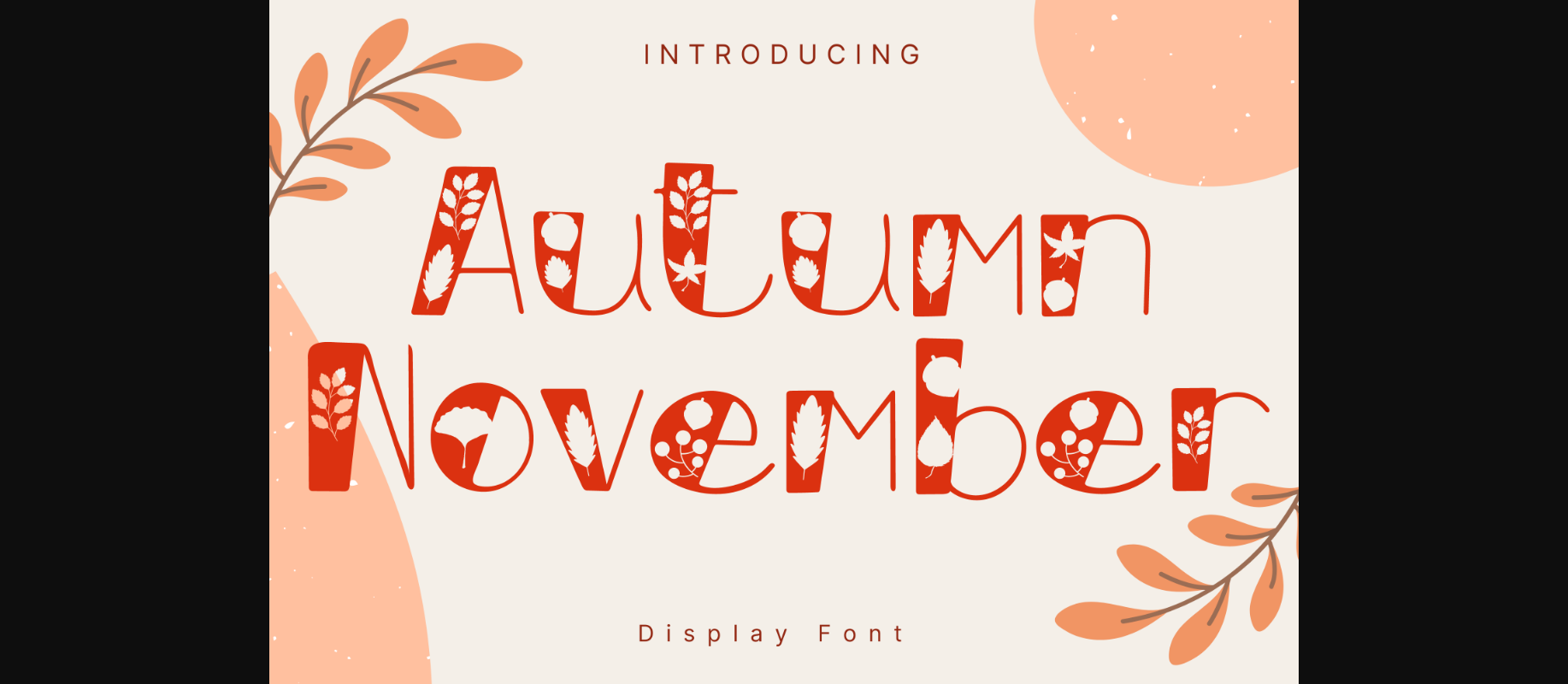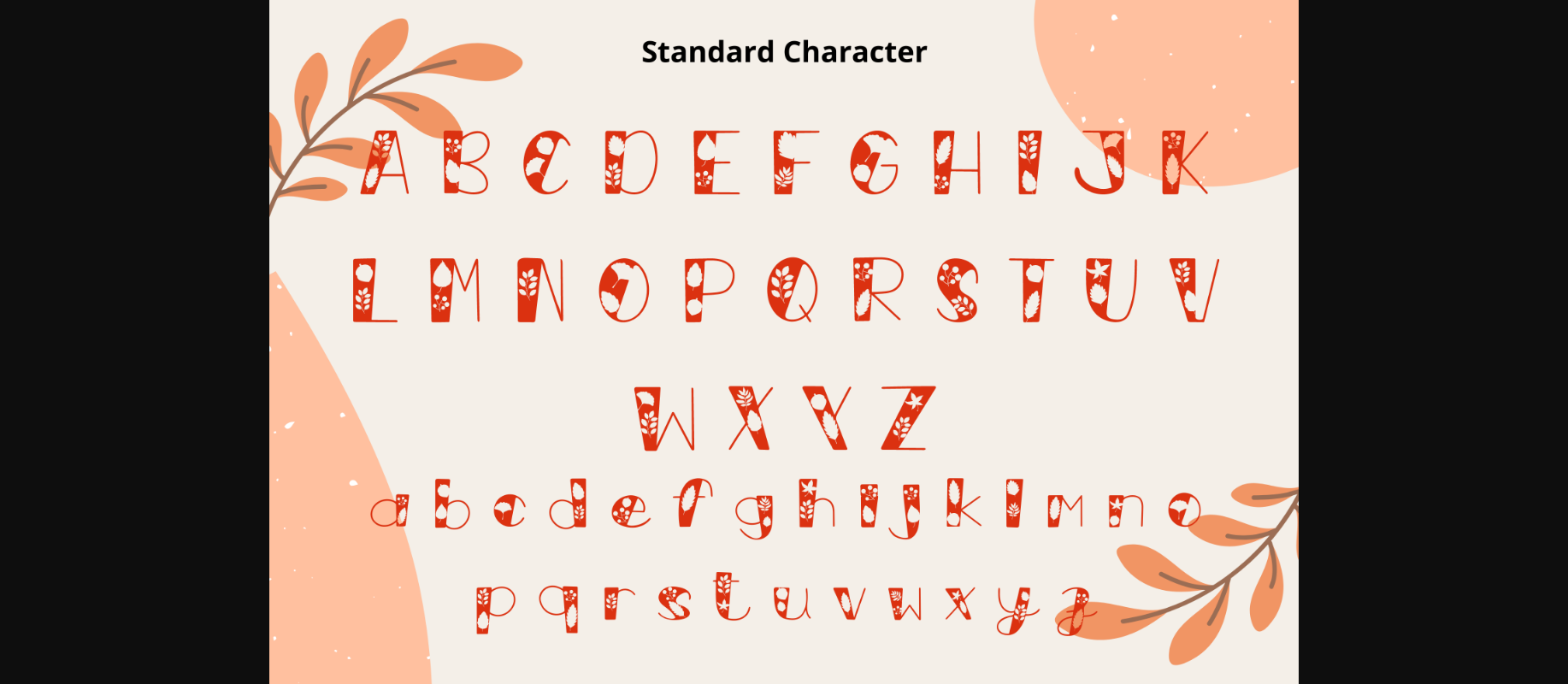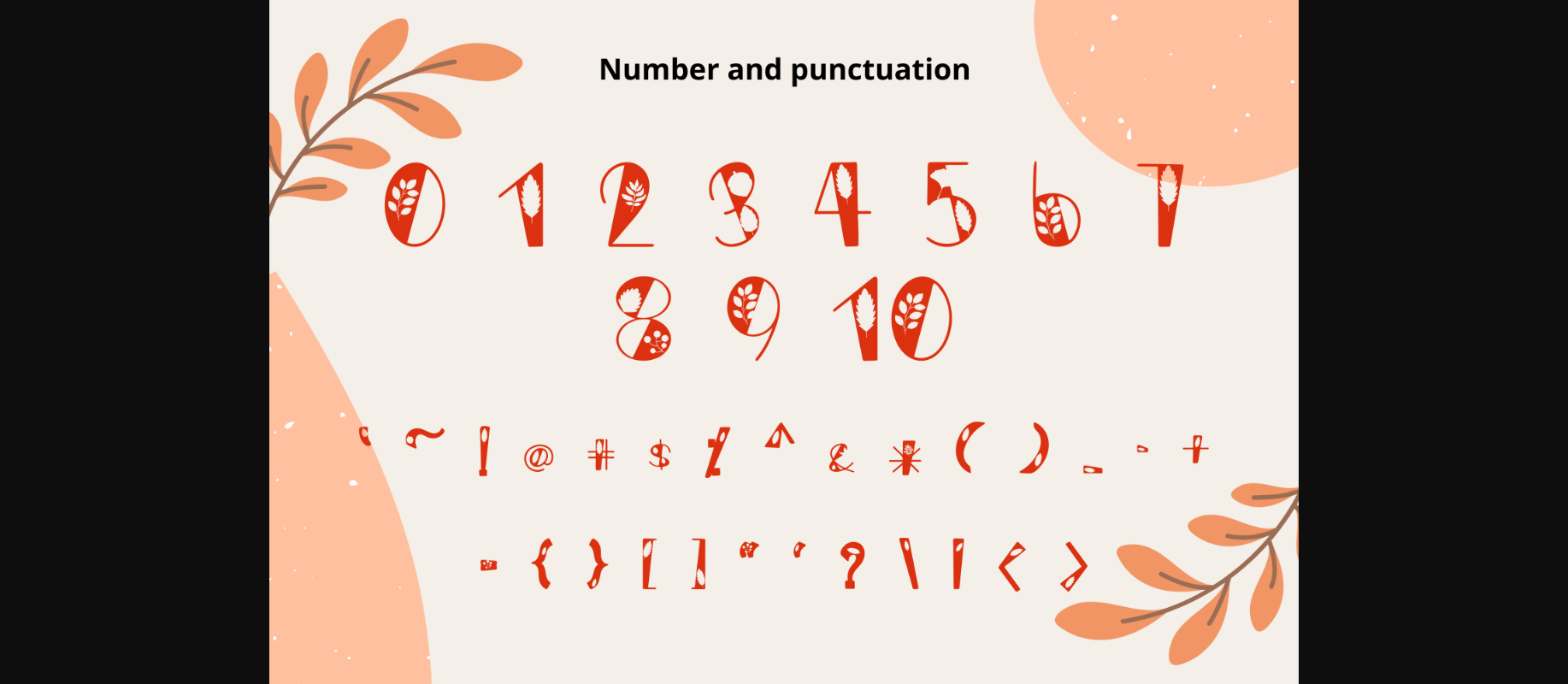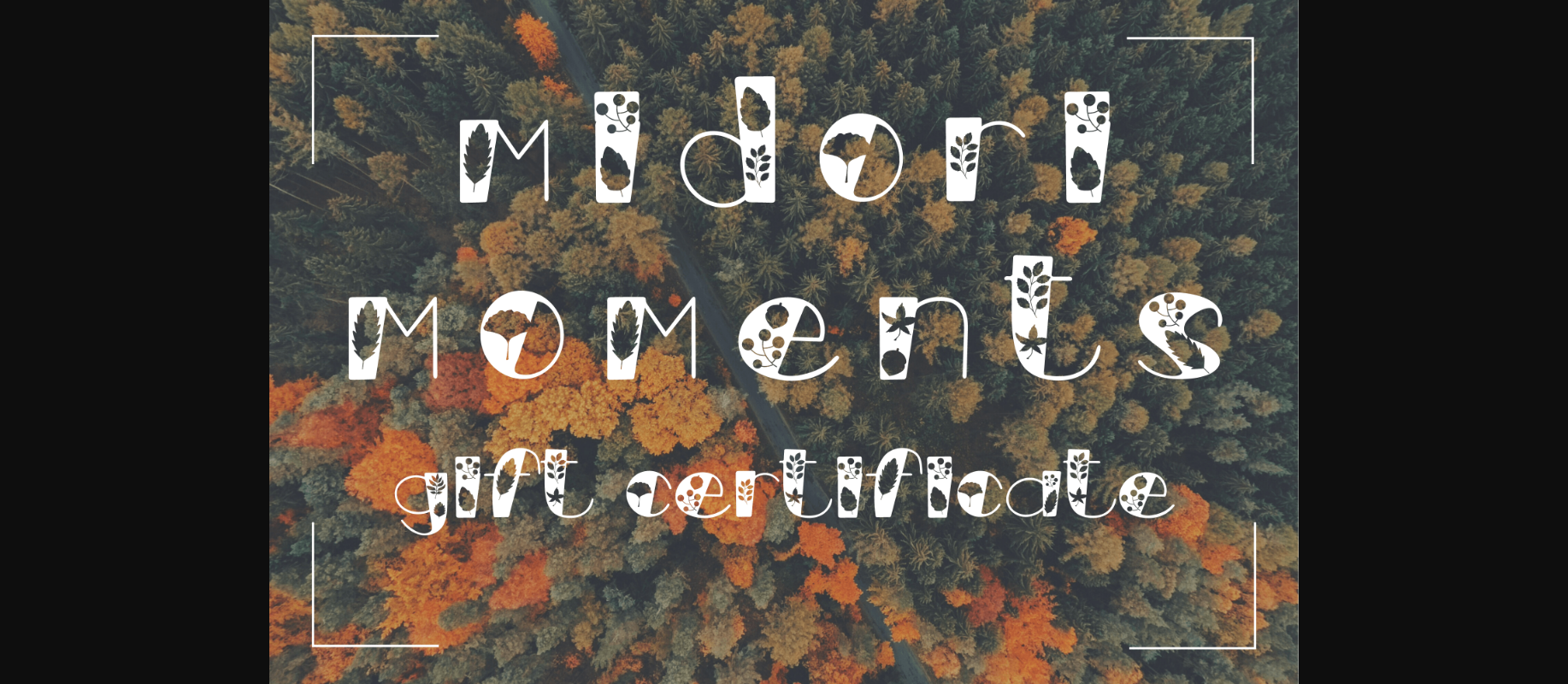
About Autumn November Font
Autumn November is a whimsical and cute decorative display font. It can easily be matched to an incredibly large set of projects, so add it to your creative ideas and notice how it makes them stand out!